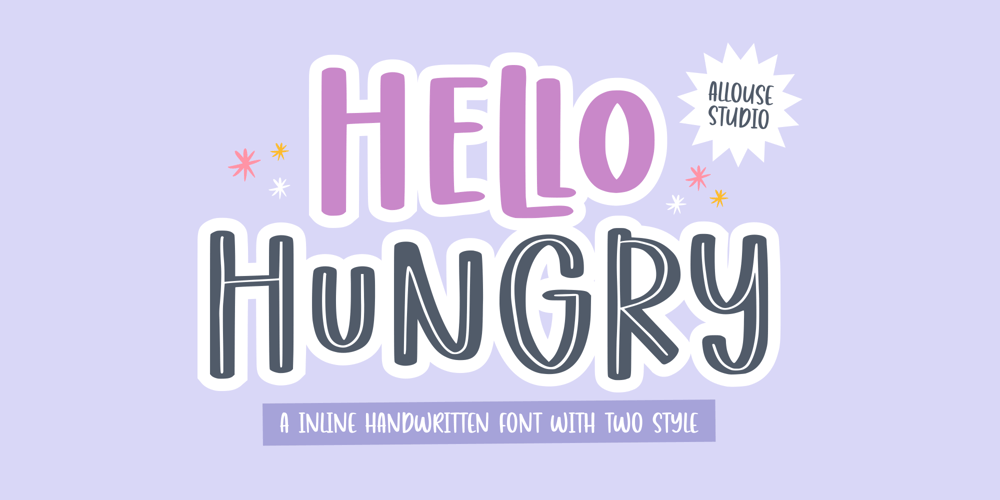
Hello Hungry Font Family was designed by Fachrizal Yusuf and published by Allouse Studio. Hello Hungry contains 2 styles and family package options. Proudly Presenting, Hello Hungry A Inline Handwritten Font With Two Styles.Hello Hungry is perfect for any titles, logo, product packaging, branding project, megazine, social media, wedding, or just used to express words above the background.Hello Hungry also come with Multi-Lingual Support.Enjoy the font, feel free to comment or feedback, send me PM or email. Thank You!